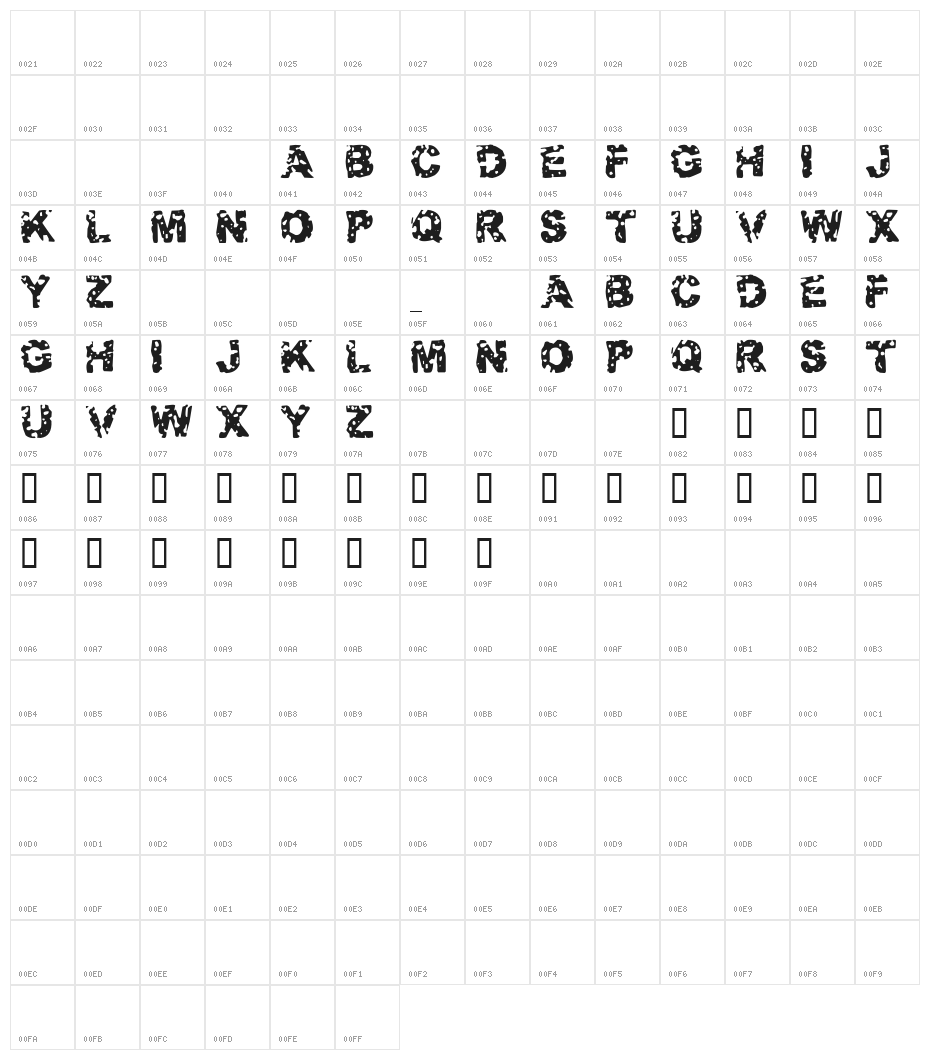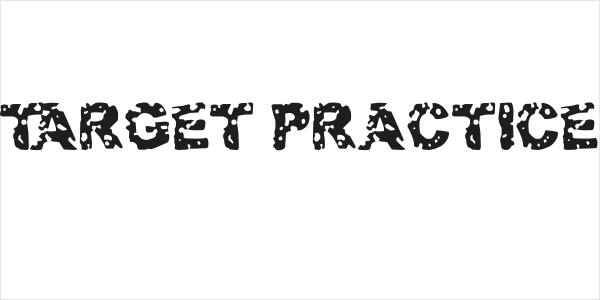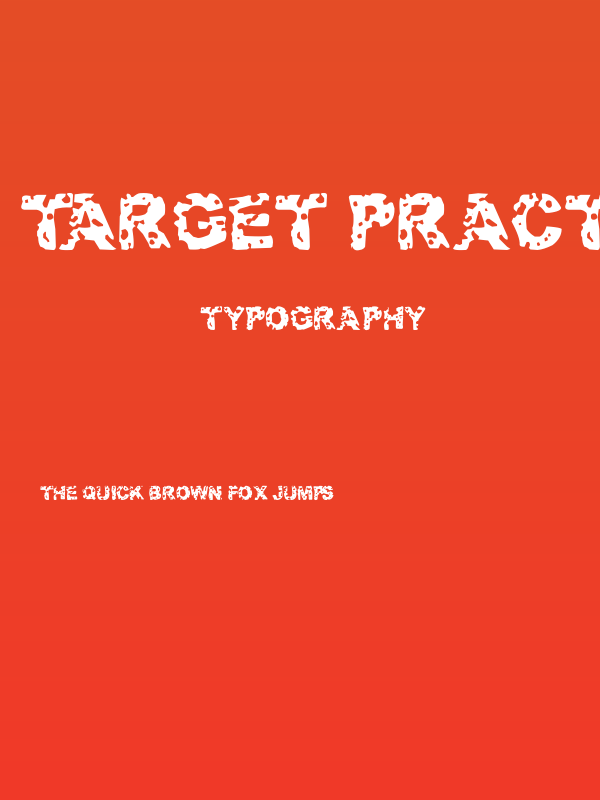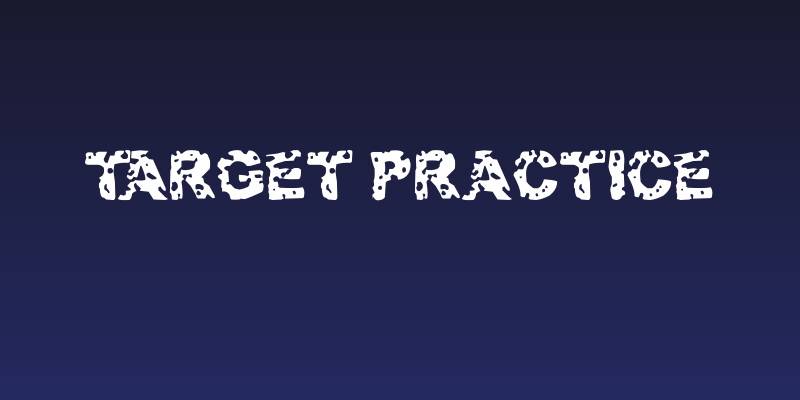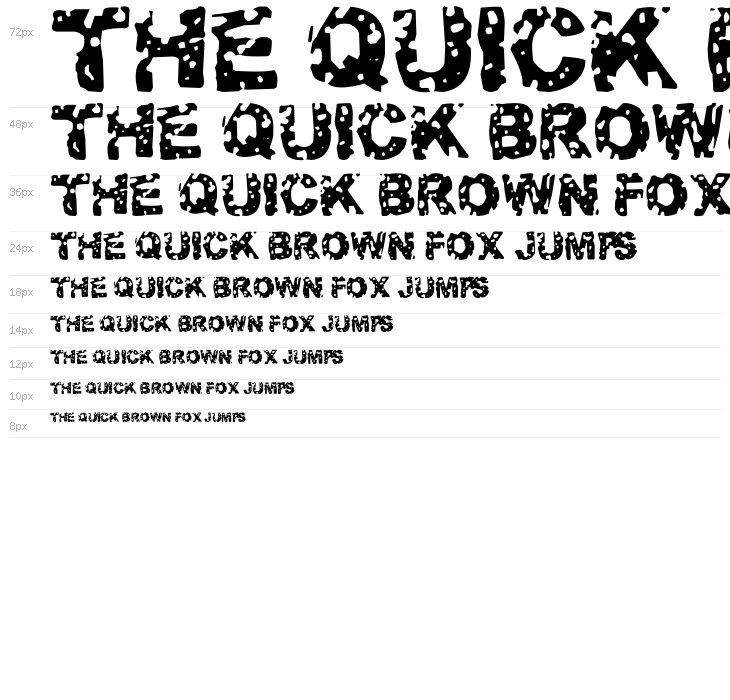
Target Practice Font
Target Practice Description
This font features a bold, distressed style that mimics the appearance of bullet holes or worn-out surfaces, giving it a rugged and edgy look. The characters are uppercase only, with a consistent weight and width across all letters. The design includes irregular, jagged edges and varying levels of distress, creating a dynamic and visually striking effect. This font is ideal for projects that require a strong, impactful statement, such as posters, album covers, or branding for edgy or rebellious themes. Its unique style makes it stand out, capturing attention with its bold and unconventional appearance.
| Proposed Projects | Ideal for posters, album covers, branding for edgy themes, and rebellious designs. |